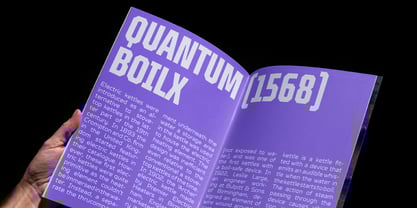
TT Octosquares
TT Octosquares is an octagonal sans serif with futuristic traits. It's an expanded and significantly enhanced version of our first commercial typeface, TT Squares. We gave TT Octosquares much more functionality and a fresher, more relevant look.
This typeface stands out for its geometric and distinctively "mosaic" appearance: it looks as if it is pieced together from various elements, which is clearly visible even in the tiniest details. At the stage of perfecting the glyph contours, we refined all the brackets, added distinctive junction forms and noticeable crossbar joints, removed sharpness from the triangular letterforms, and cut all the sharp terminals.
TT Octosquares truly shines in large and medium point sizes: by increasing the size, you can unravel the font's edges and traits that make it look very unusual. However, the typeface stays readable in smaller point sizes and acquires a more minimalist look. This font is a perfect choice for projects in architecture, design, fashion, technology, and more. It will look equally captivating on a scientific journal cover or a techno-party poster.
The typeface features a variable font with three axes of variation: weight, width, and slant. This allows designers to create unique combinations and adapt TT Octosquares to suit a wide variety of tasks. Besides, the typeface has numerous stylistic alternates, ligatures, old-style figures, circled figures, and a slashed 0.